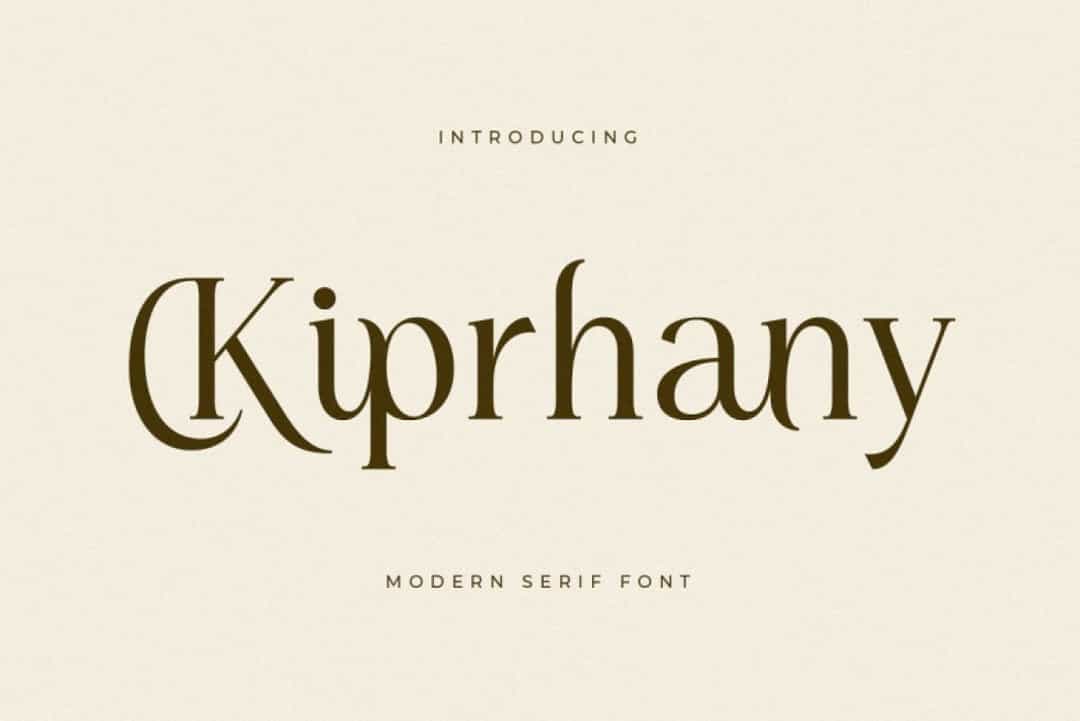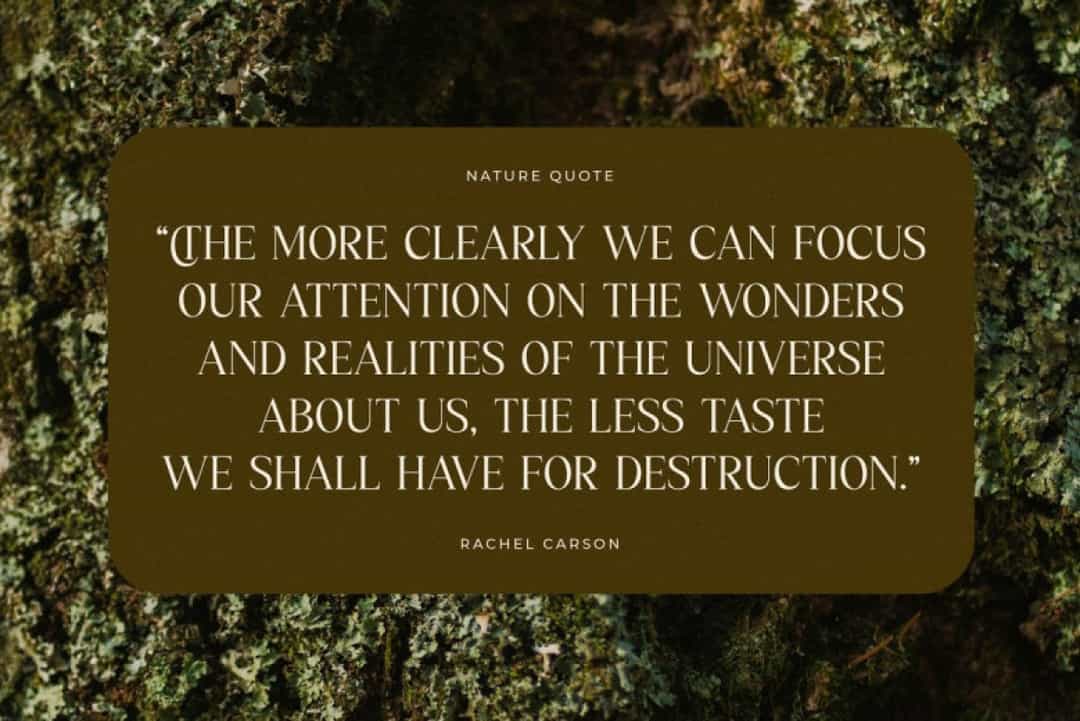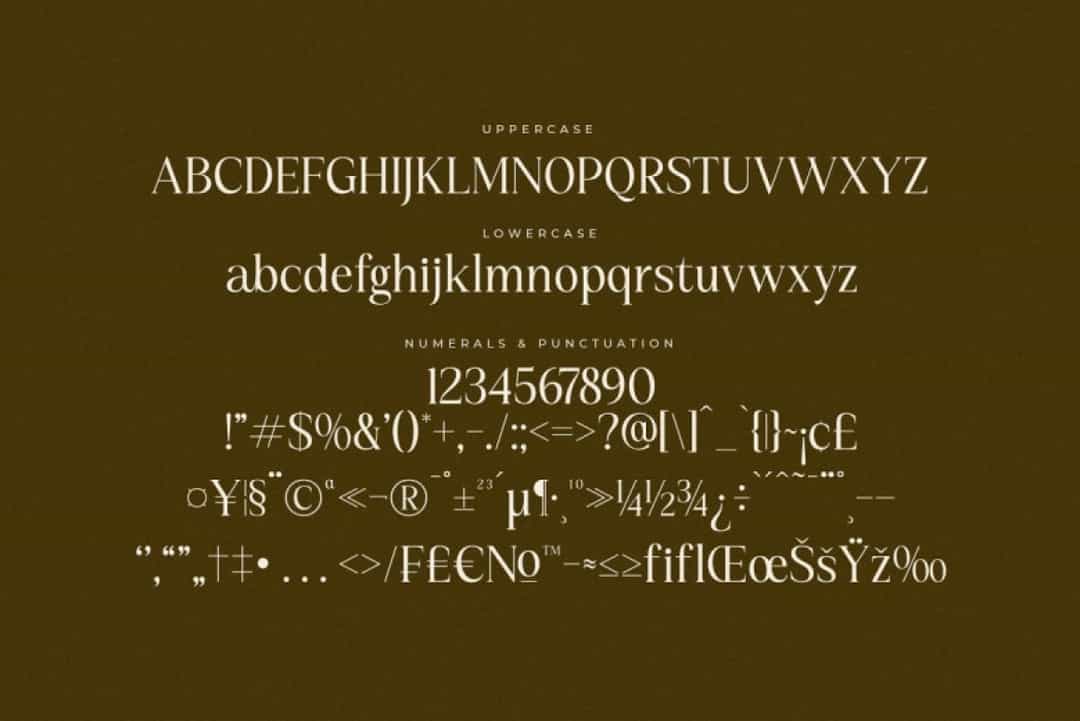
Kiprhany is a contemporary serif typeface ideal for any project requiring luxurious serif designs such as logos, branding designs, homeware, packaging of products, posters and quotes for clothing bags book covers name cards invitations greeting cards labels photography watermark special occasions photography watermark or any other beautiful serif designs.